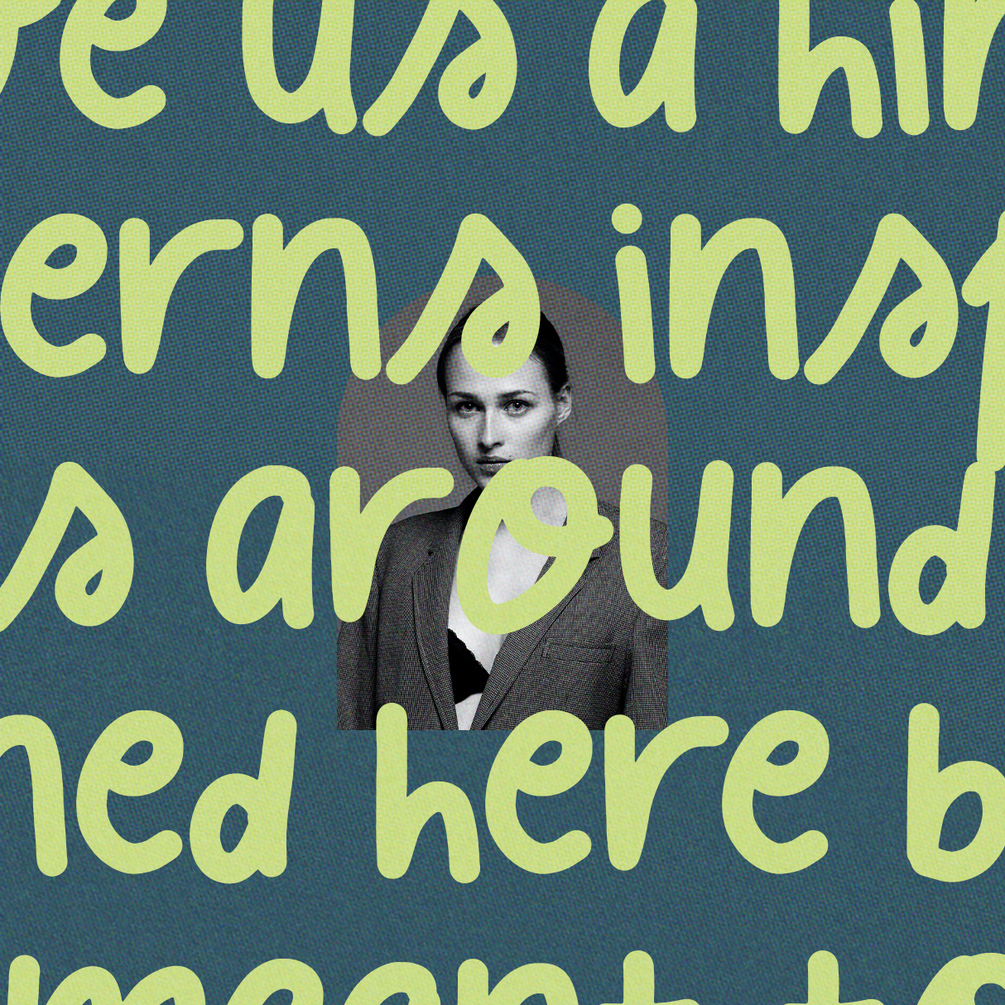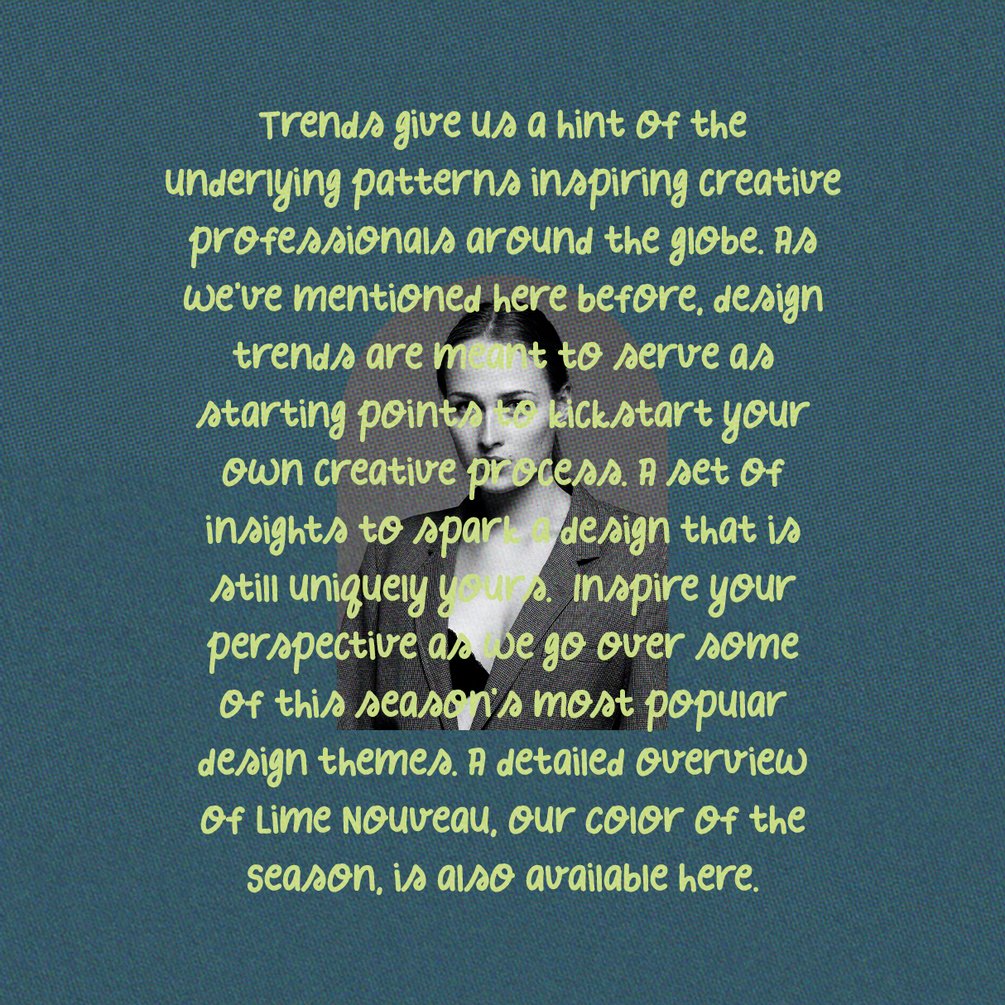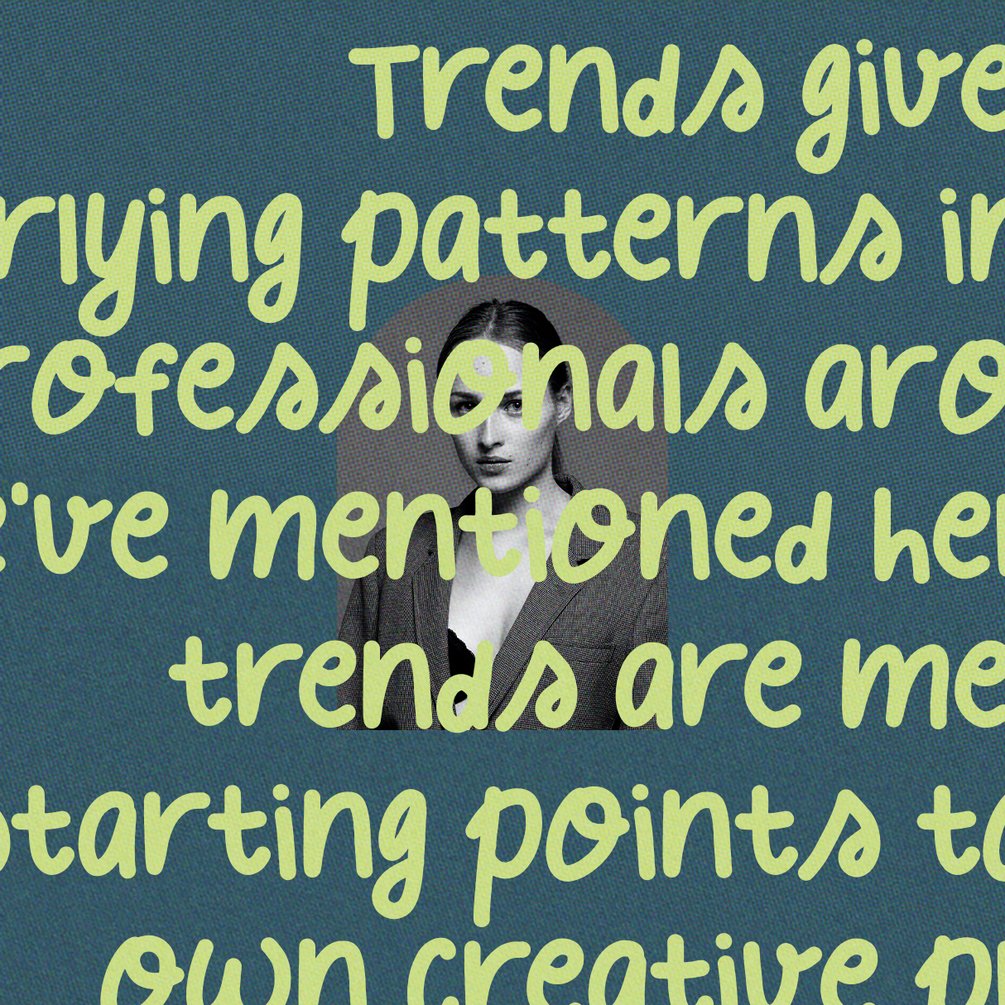
The Dusty Lime Demo - Quirky Handwritten Font
Inspired by the new Creative Market's color of the season, The Dusty Lime is my take on a super playful, 100% handwritten font! Whether you have a client that needs a new quote design, or a social media post, it’s perfect for you. Check out the photos I have prepared for you to see what you can do with it and happy creating!
I invite you to check out the preview images, and I hope you will be immersed in my vision for this creative typeface that, I am sure, will work for all kinds of interesting projects you might be working on this year.